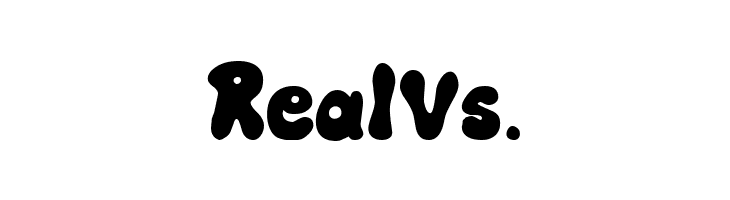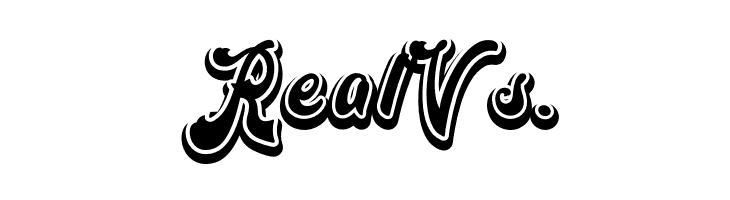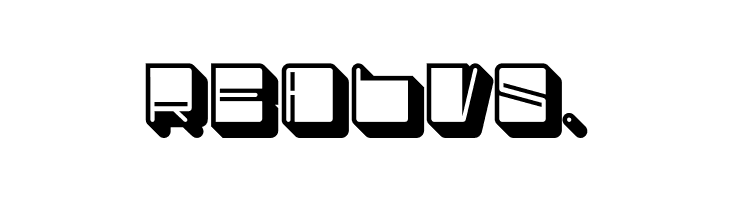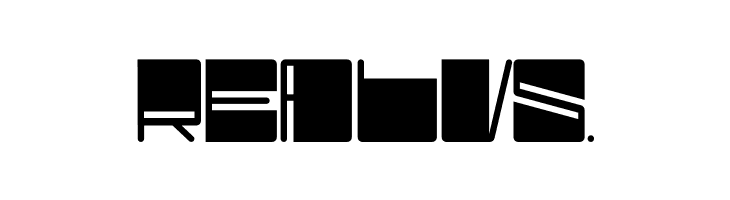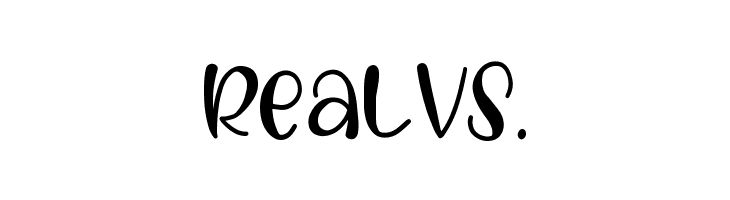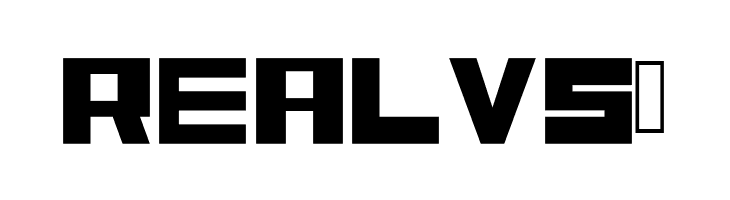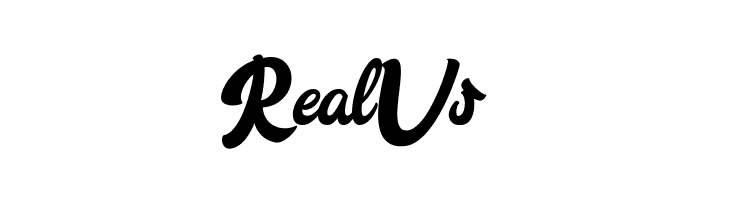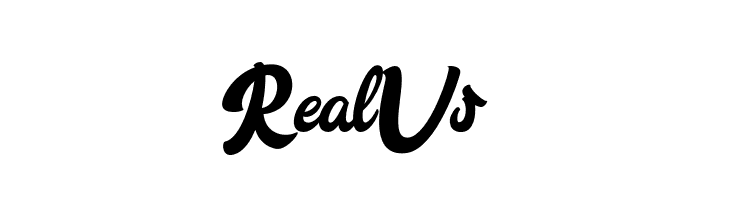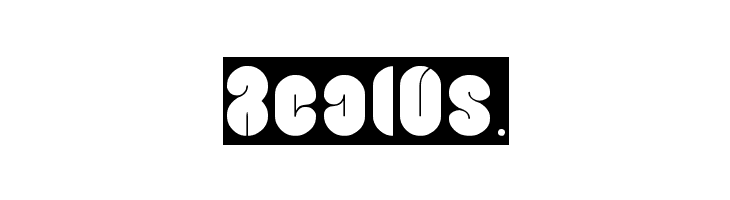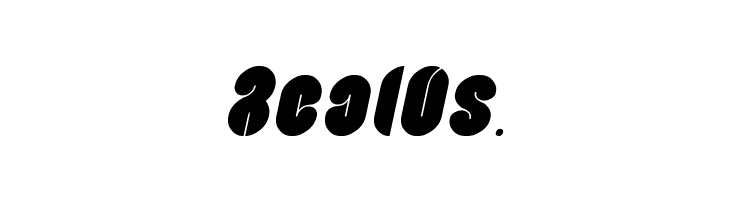
• Blooms
A playful and whimsical script font with bold, flowing letterforms.
• Bloomsburg
A modern, geometric sans-serif font with a clean and versatile design.
• BloomyScriptFree
A flowing, cursive script font with elegant, sweeping strokes.
• Blooqe Stages FREE
A bold, cursive font with a flowing, handwritten style.
• BlooqeStagesFREE
A bold, flowing script font with elegant, cursive letterforms.
• Bloq
A playful, rounded font with smooth curves and consistent stroke width.
• Bloque
A bold, geometric font with angular, block-like characters.
• BloqueDemo
A modern, decorative font with geometric line patterns creating an abstract appearance.
• Blora
A bold, expressive script font with high contrast and decorative flourishes.
• Blora Based
A bold, decorative font with playful cursive elements and ornate details.
• Blora Extrude
A bold, playful font with a 3D extruded effect and script-like connected characters.
• Blora-Shadow
A bold script font with a dynamic shadow effect, perfect for impactful designs.
• Blossom
A playful, handwritten script font with a whimsical style.
• Blossom Heart
An elegant script font with flowing, cursive style and intricate swashes.
• Blossom Italic
A cursive, italic font with a flowing, elegant style.
• Blossom Regular
A playful and whimsical font with rounded, irregular letterforms and lively strokes.
• Blossomed
A lively, expressive handwritten font with fluid, cursive strokes.
• Blossomed
A lively and expressive handwritten font with fluid, cursive letterforms.
• Blossomy Regular
A decorative and whimsical font with elongated serifs and a playful style.
• Blosvet